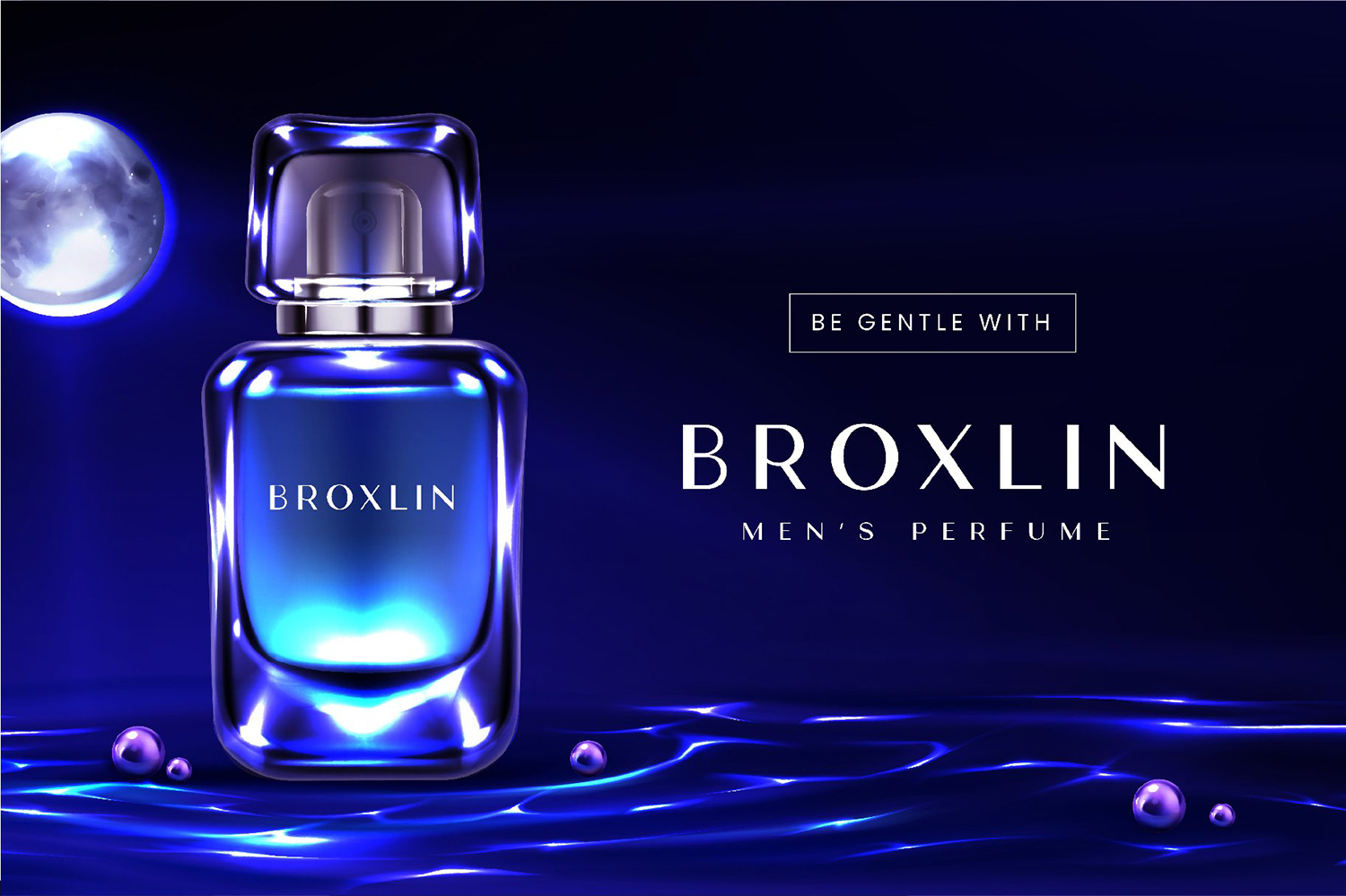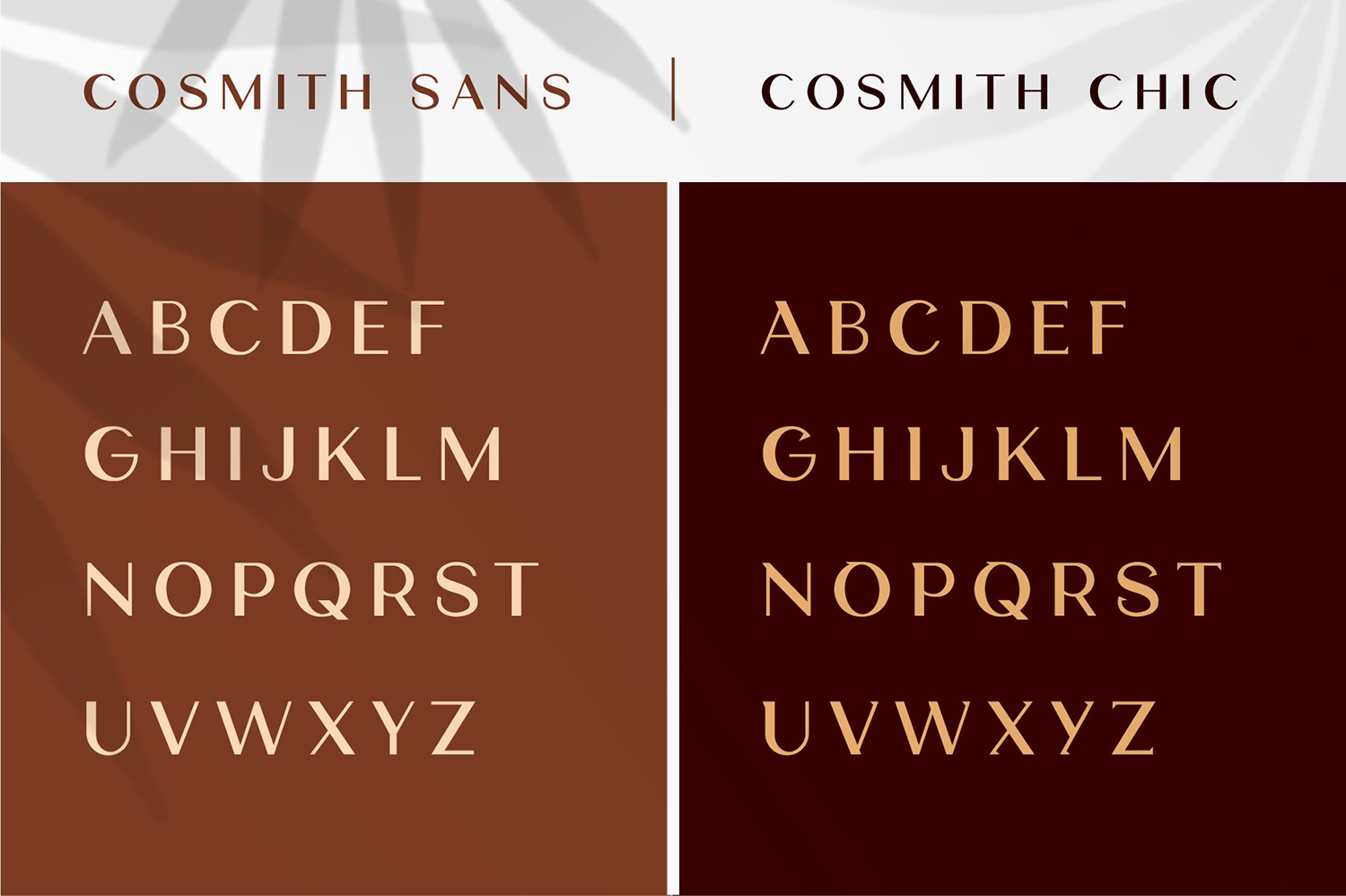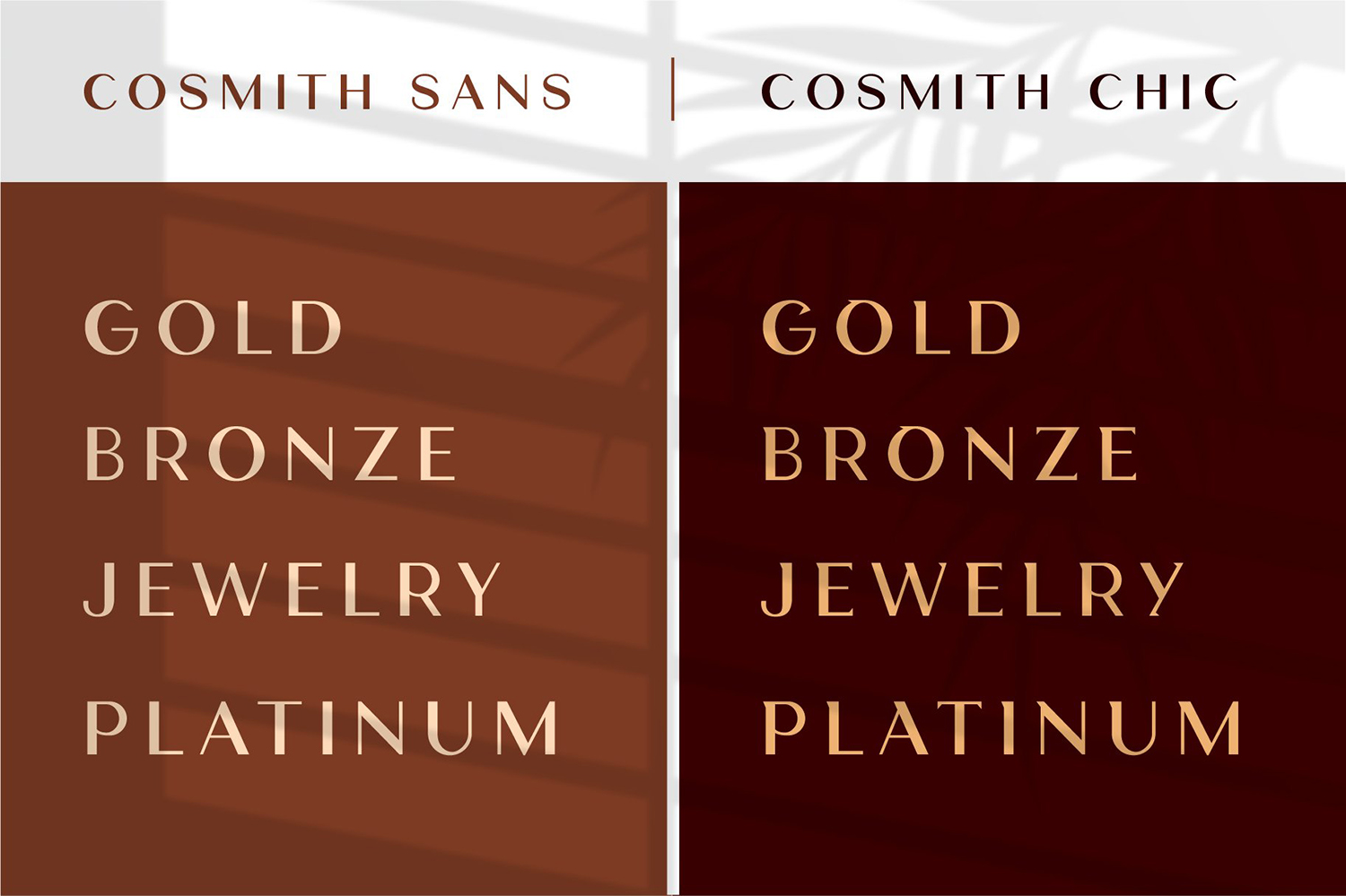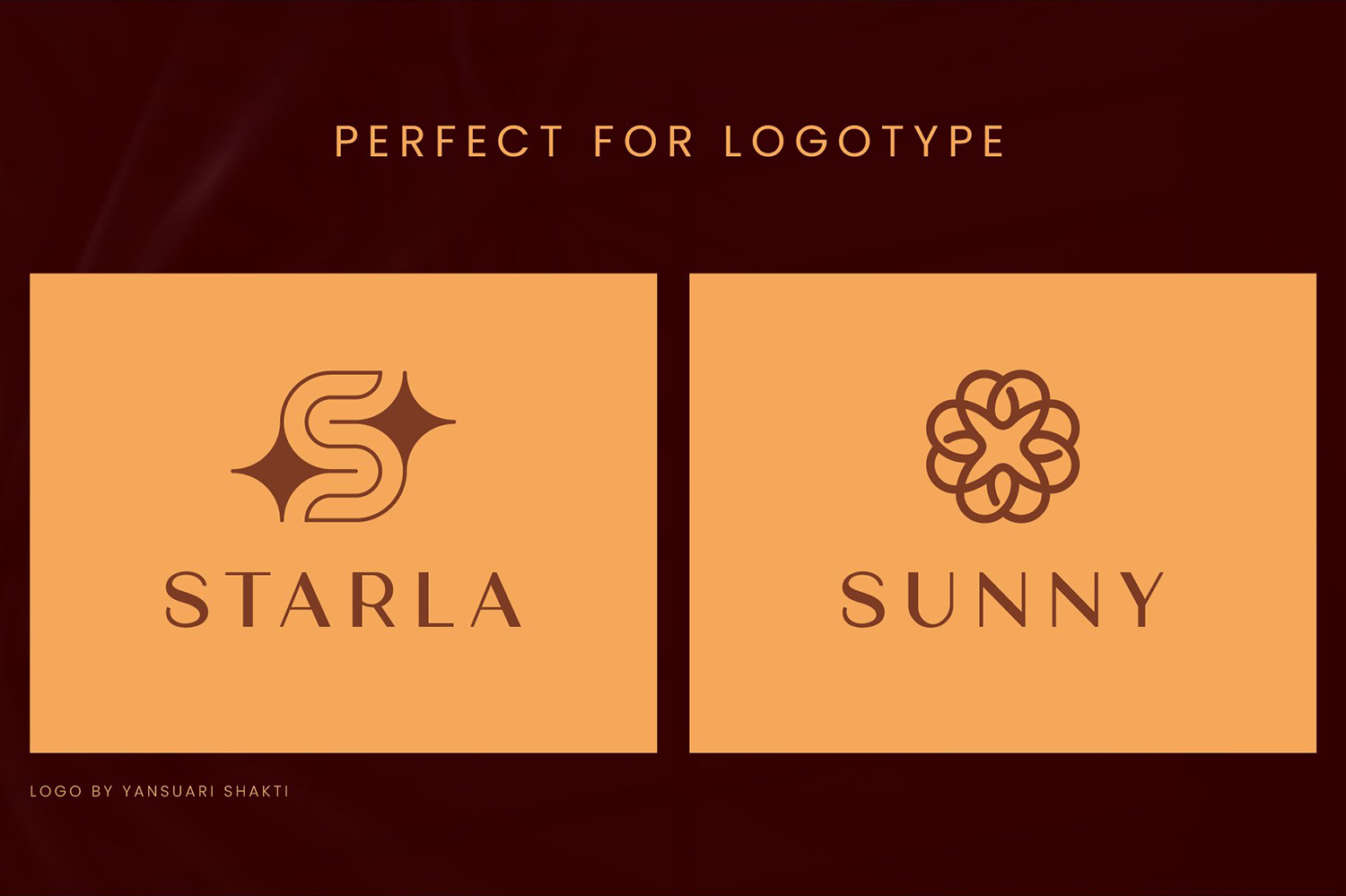
Cosmith Free Font
Introducing Cosmith Free Font, a minimalist and sophisticated duo font featuring both serif and sans-serif styles. This versatile font is the optimal choice for crafting attention-grabbing logos, impactful branding, and compelling quotes. Elevate your design projects with the simple yet elegant appeal of Cosmith. This free typeface was designed by a talented Beautypes Studio. If you like it don’t forget to check out the full version.